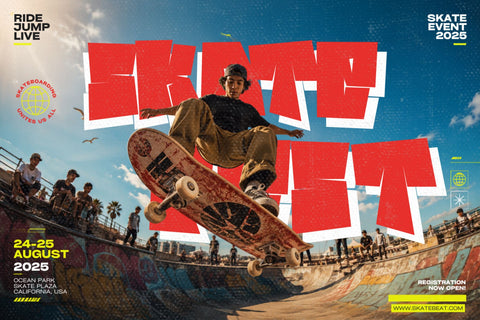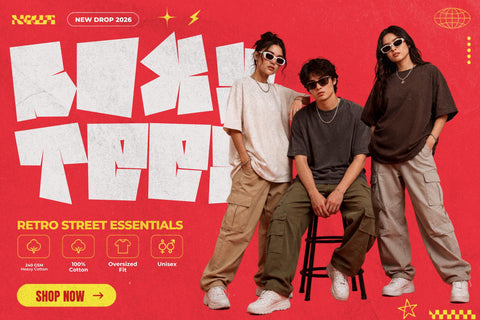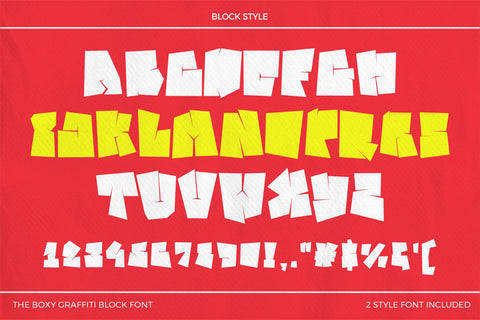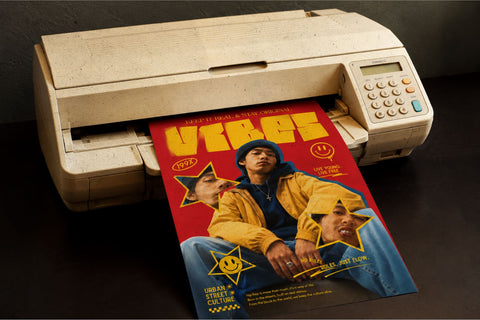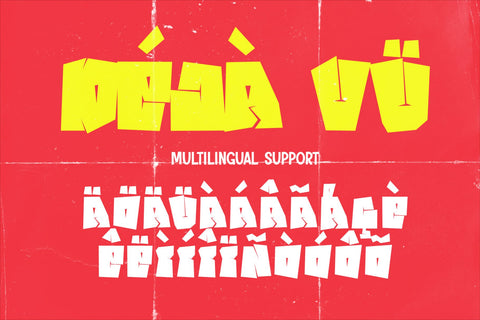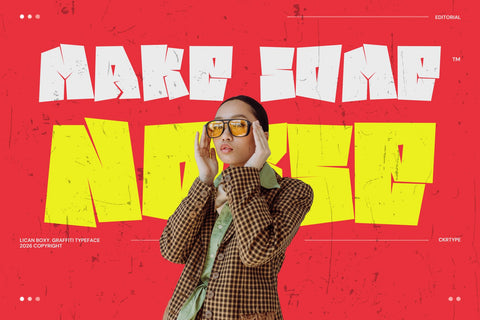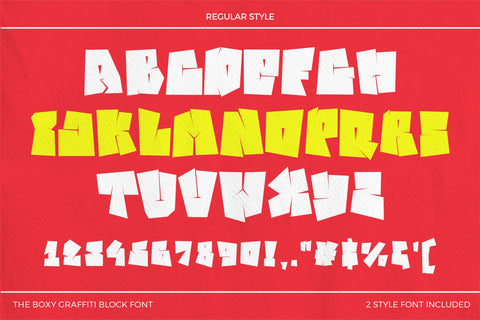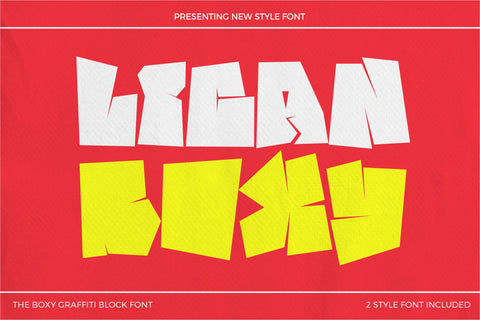
Lican Boxy – Boxy Graffiti Block Font
Bring bold urban energy into your designs with Lican Boxy, a powerful boxy graffiti display font inspired by classic street lettering, skate culture, hip hop visuals, and modern fashion branding. Built using chunky block shapes with handcrafted imperfections, this font creates an authentic graffiti appearance while remaining clean enough for professional design projects.
Lican Boxy is perfect for creating strong headlines, bold logos, merchandise, apparel graphics, posters, album covers, YouTube thumbnails, gaming titles, sports branding, packaging, stickers, advertising campaigns, and social media content. Its oversized geometric forms command attention instantly, making every word stand out.
This package includes 2 font styles, giving designers extra flexibility for building impactful typography across both digital and print media.
Features
- Uppercase Characters
- Numbers & Punctuation
- 2 Font Styles
Perfect for:
- Streetwear Brands
- Graffiti Artwork
- Urban Logos
- Music Posters
- Hip Hop Designs
- Skate Graphics
- Sports Branding
- Gaming Projects
- Merchandise
- Packaging